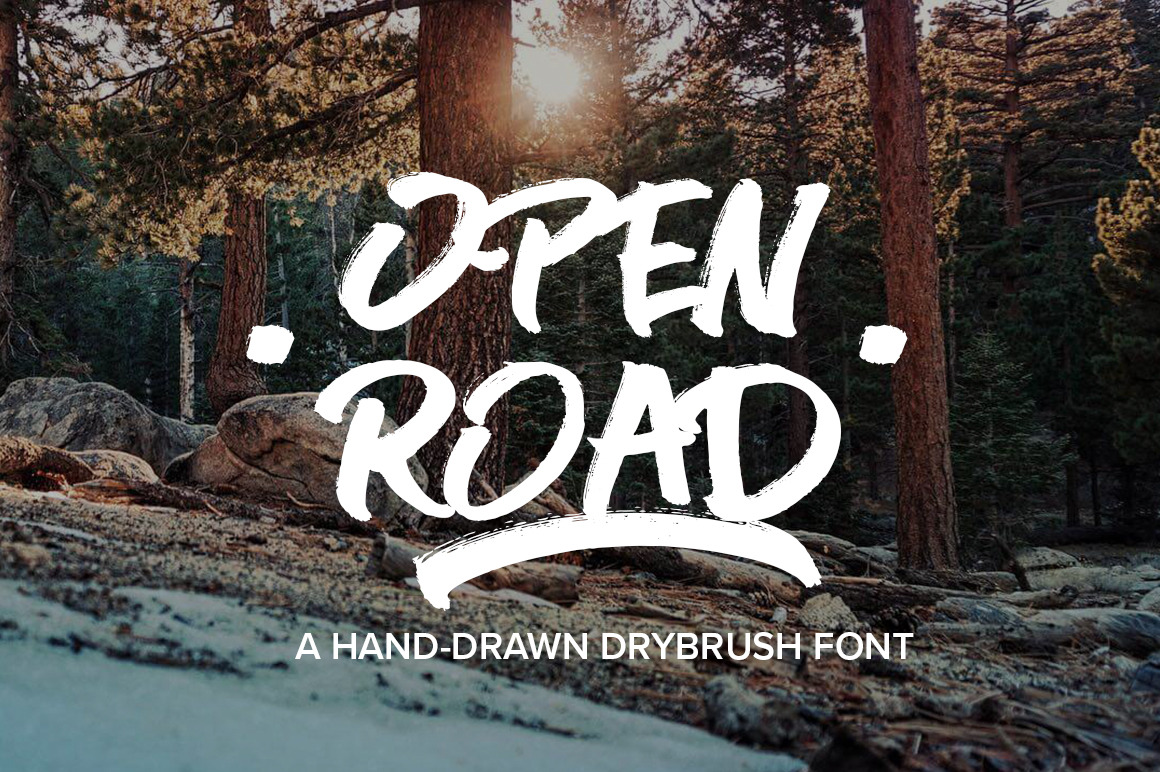
OPEN ROAD Brush Font
Open Road is a hand-drawn drybrush font that captures the freedom and adventure of being out exploring with nothing but the horizon ahead.
Special attention has been paid to creating an organic feel, with solid, comfortable characters drawn with quick strokes to emphasise the hand-drawn feel. It's ideal for logos, apparel, quotes, product packaging, posters, web designs, or anything that needs a bold, hand-drawn power-up!
Open Road has been designed for short, bold headlines and phrases, so comes in uppercase only with minimal punctuation. If there's enough interest I may extend this to include further characters and variations.
- To use the two swashes type "{" or "}"